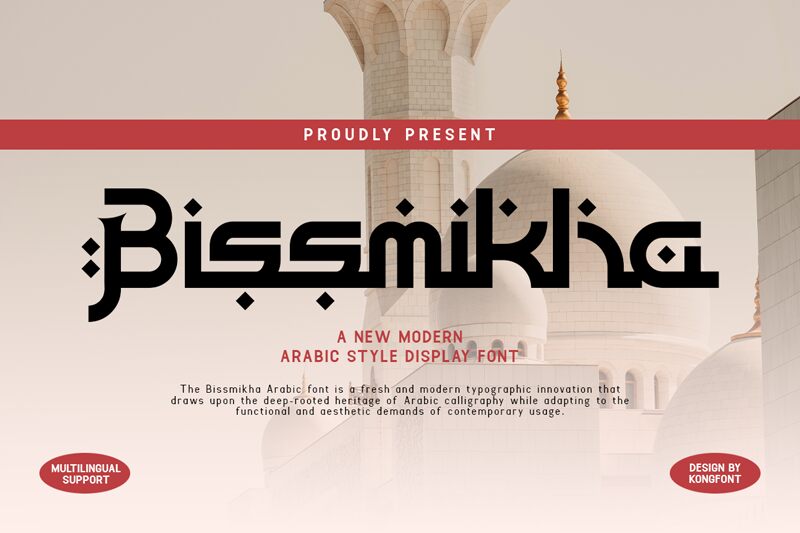
Bissmikha font by Kong Font is a perfect fusion of cultural aesthetics and contemporary style, designed to bring an Arabic-inspired touch to your projects. This exclusive free font has structured geometric details that lend it a modern and artistic feel. Add a touch of elegance and a unique decorative style to your work with this display font.
Use Bissmikha for branding and visual identities, book covers, magazines, posters, marketing material, or even interiors and exteriors of stores and shops. It works perfectly for digital projects like websites, social media ads, and mobile applications.